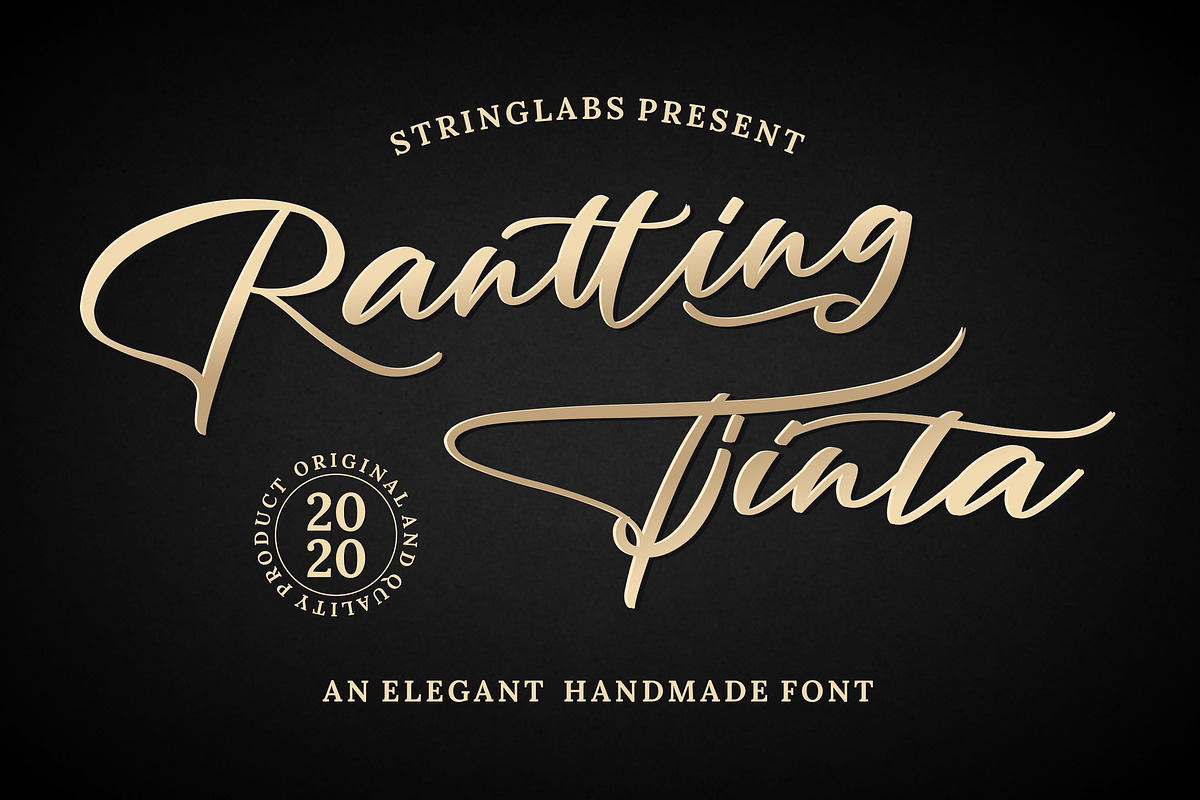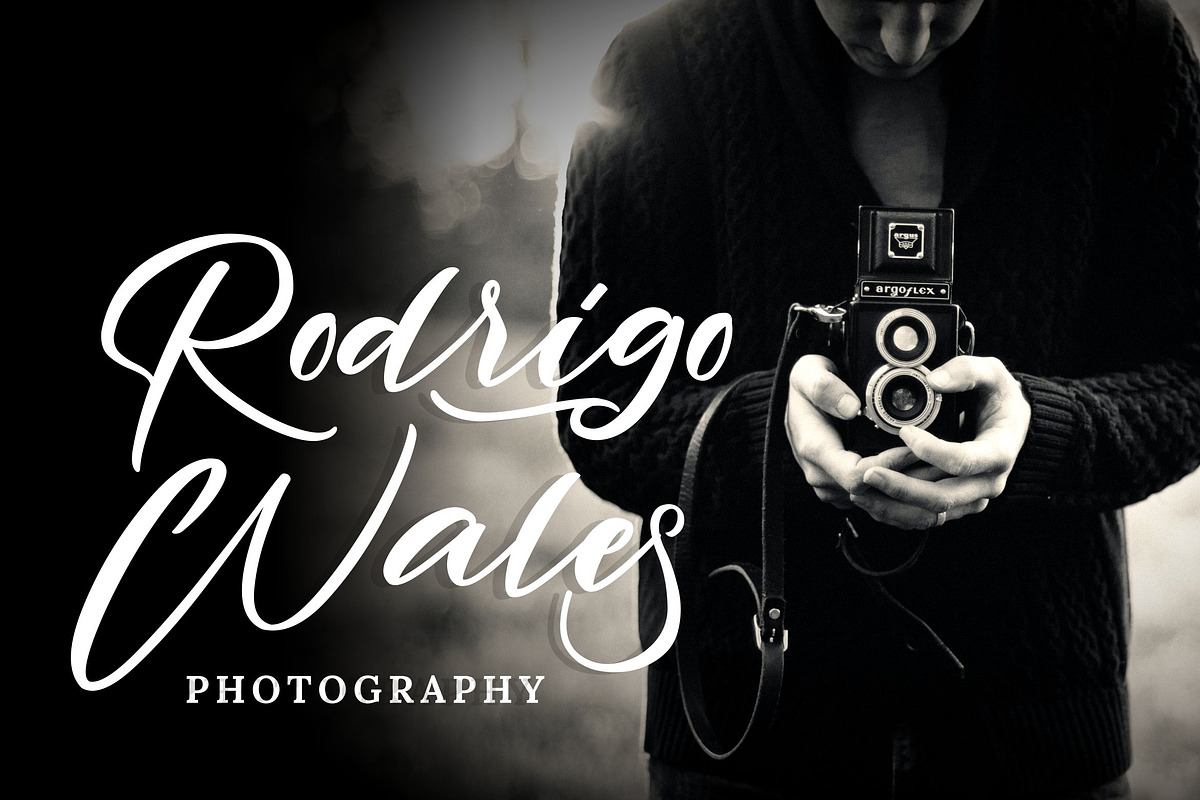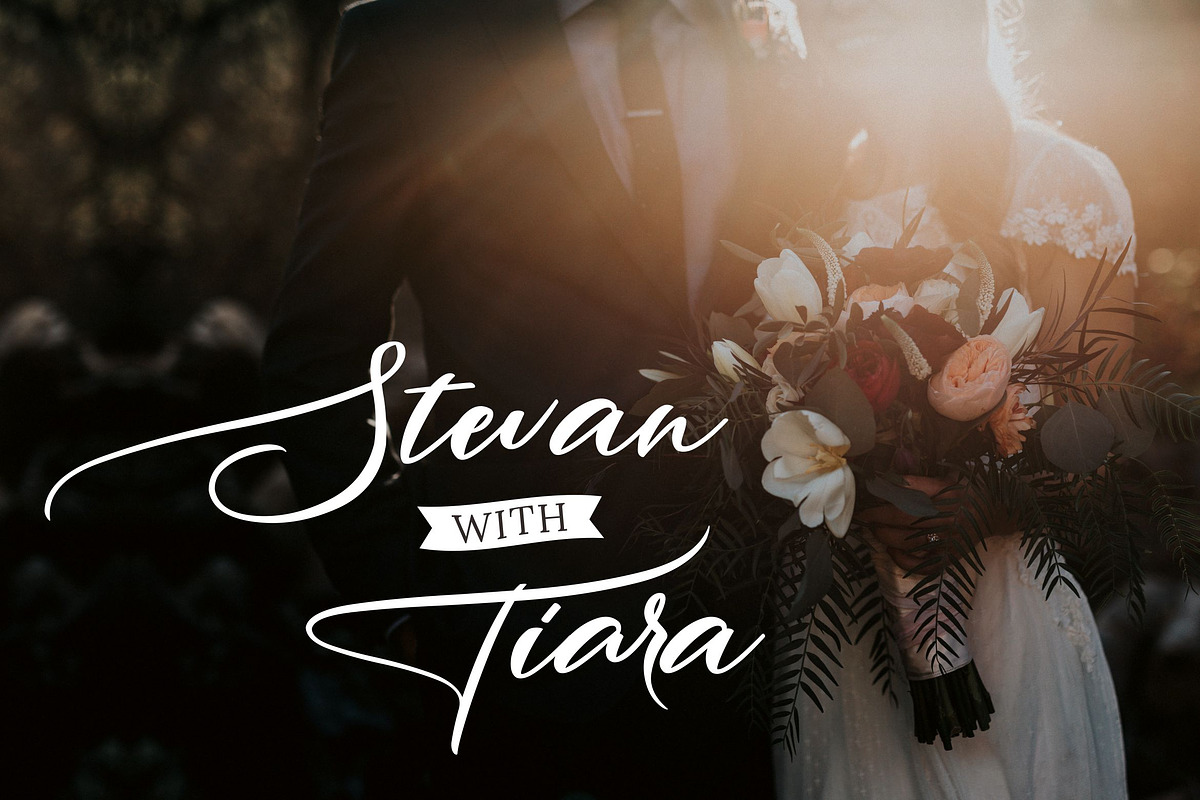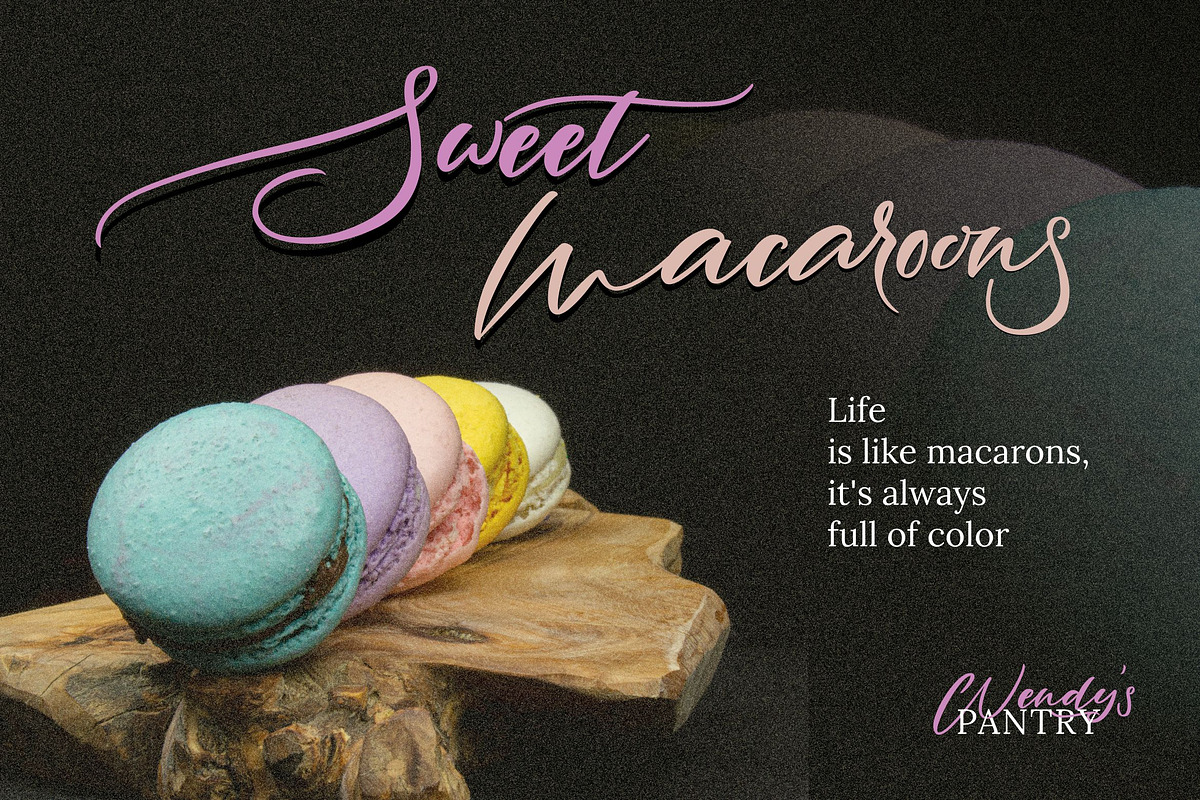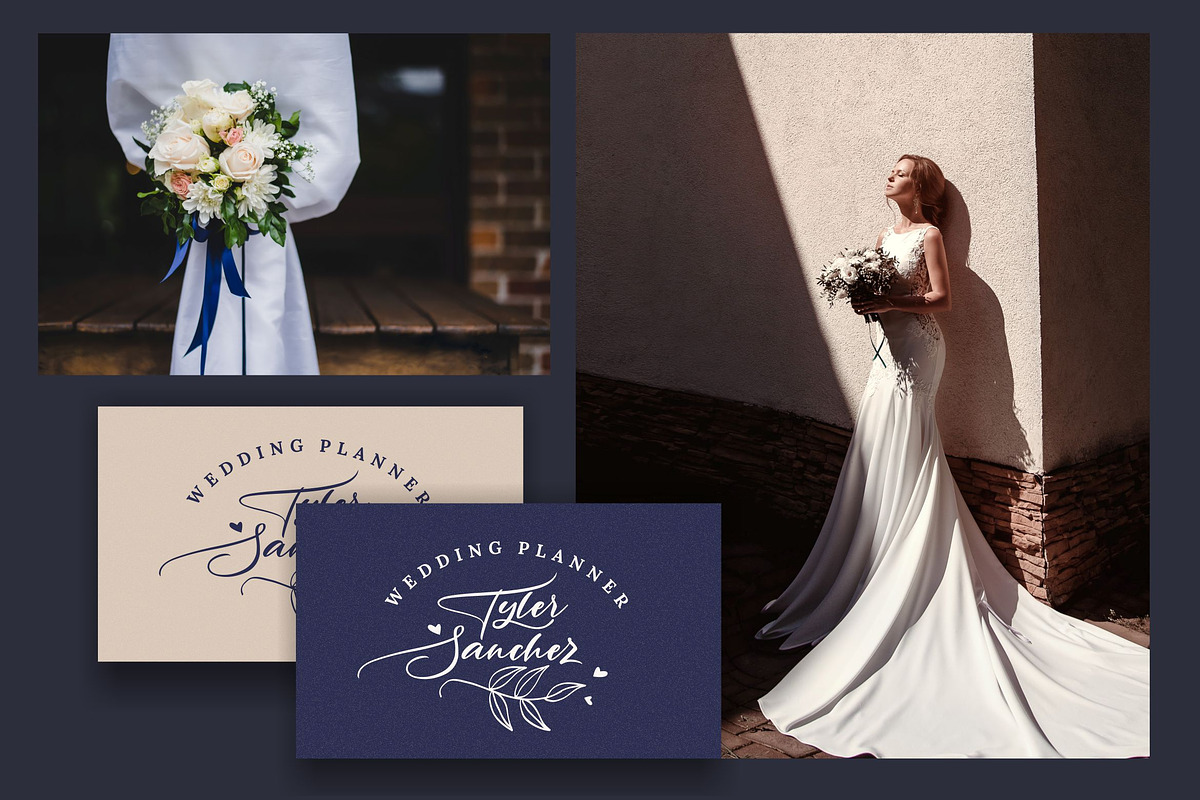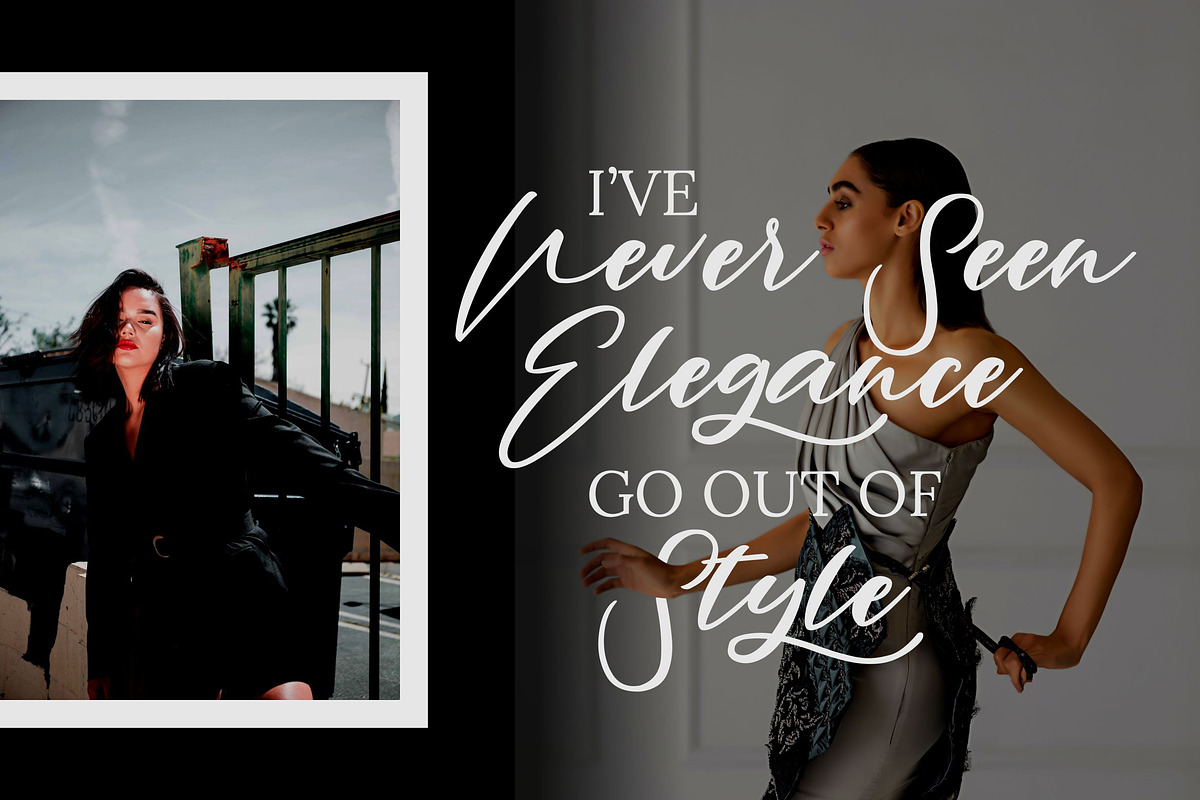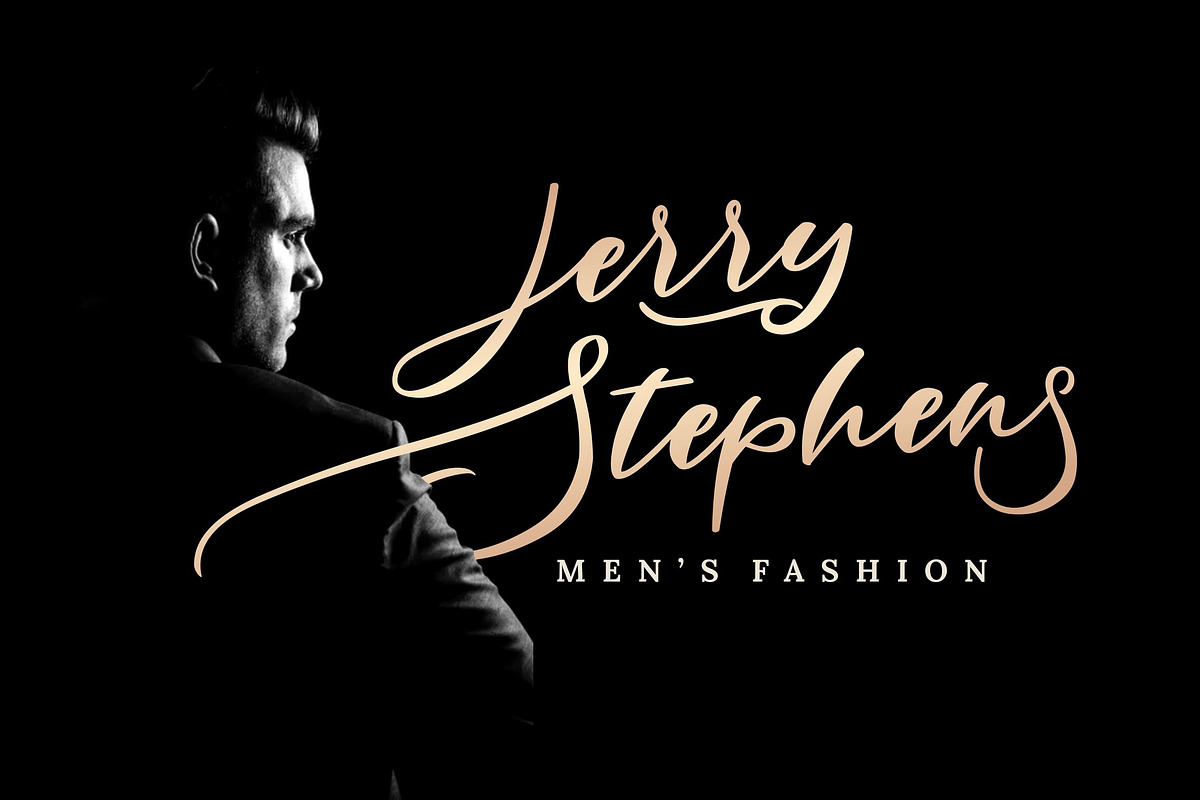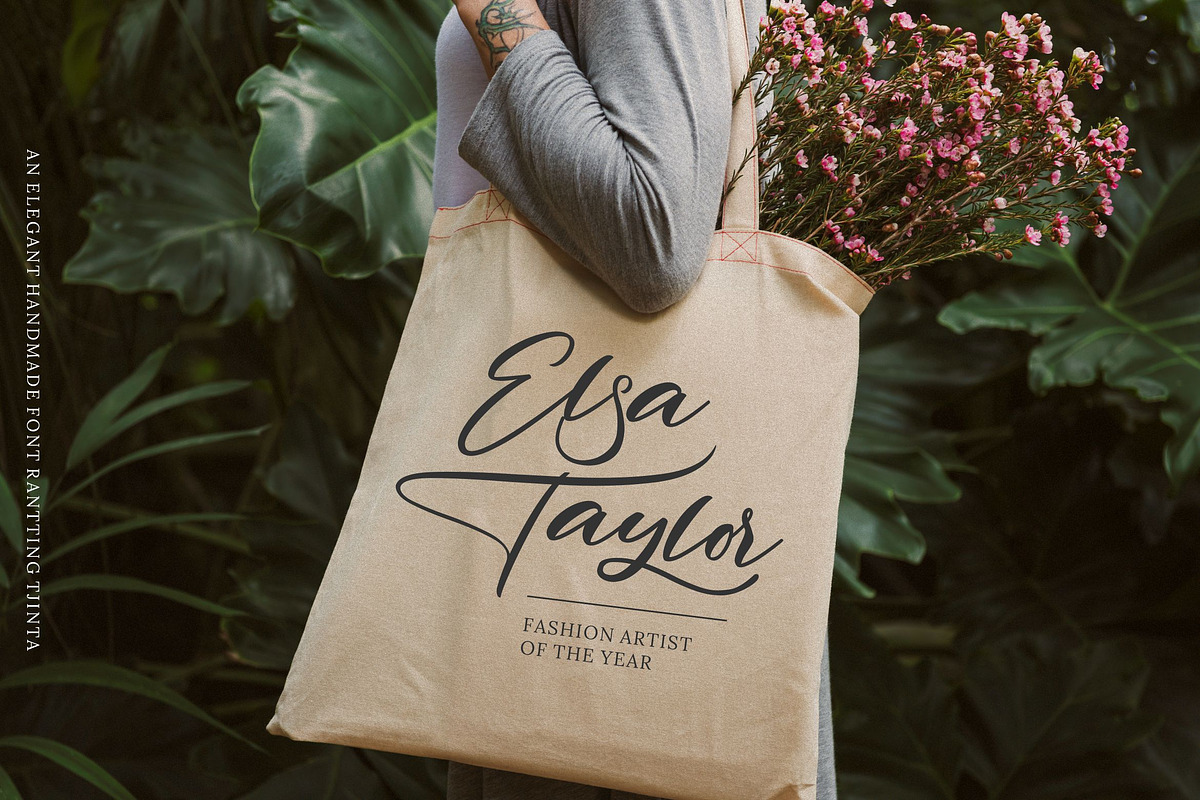
Rantting Tjinta - Handwritten Font
Introducing Rantting Tjinta - Stylish Script Font
Rantting Tjinta is a handwritten script font with stylish style. The Rantting Tjinta font made with digital brush pen strokes that making this font look authentic. This font is perfect for fashion brand, wedding invitation, business card, logo brand, signature, and then calligraphy.